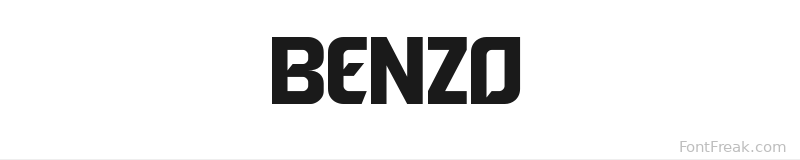
Benzo
About Benzo
Benzo is a striking sans-serif typeface designed by Kong Font, released in 2020 as freeware. This modern typeface is characterized by its clean lines and geometric shapes, making it an excellent choice for a variety of design projects. The stroke weight of Benzo is uniform, providing a contemporary feel, while its slight contrast adds a touch of sophistication that enhances readability. The spacing is thoughtfully balanced, ensuring that each letter interacts harmoniously with its neighbor, creating a visually appealing flow.
Benzo's versatility makes it ideal for numerous applications. It works beautifully for wedding invitations, where its elegant simplicity can convey a sense of modern romance. Additionally, it's perfect for movie posters, allowing titles to stand out with clarity and boldness. Restaurant menus can benefit from Benzo's clean and inviting appearance, helping to highlight dish names and descriptions attractively. This font also suits branding for small businesses, offering a professional look that can enhance company identity in various marketing materials.
Targeting graphic designers, small business owners, and content creators, Benzo serves as a reliable choice for those looking to elevate their work. Its modern aesthetic and functional design enable users to create captivating visuals that resonate with their audience.
What sets the Benzo font apart is its balance of elegance and modernity, making it a go-to option for anyone in need of a fresh, clean typeface. With the Benzo font free download available, it becomes accessible to all who wish to incorporate this stylish typeface into their projects, adding a unique touch that is sure to impress.